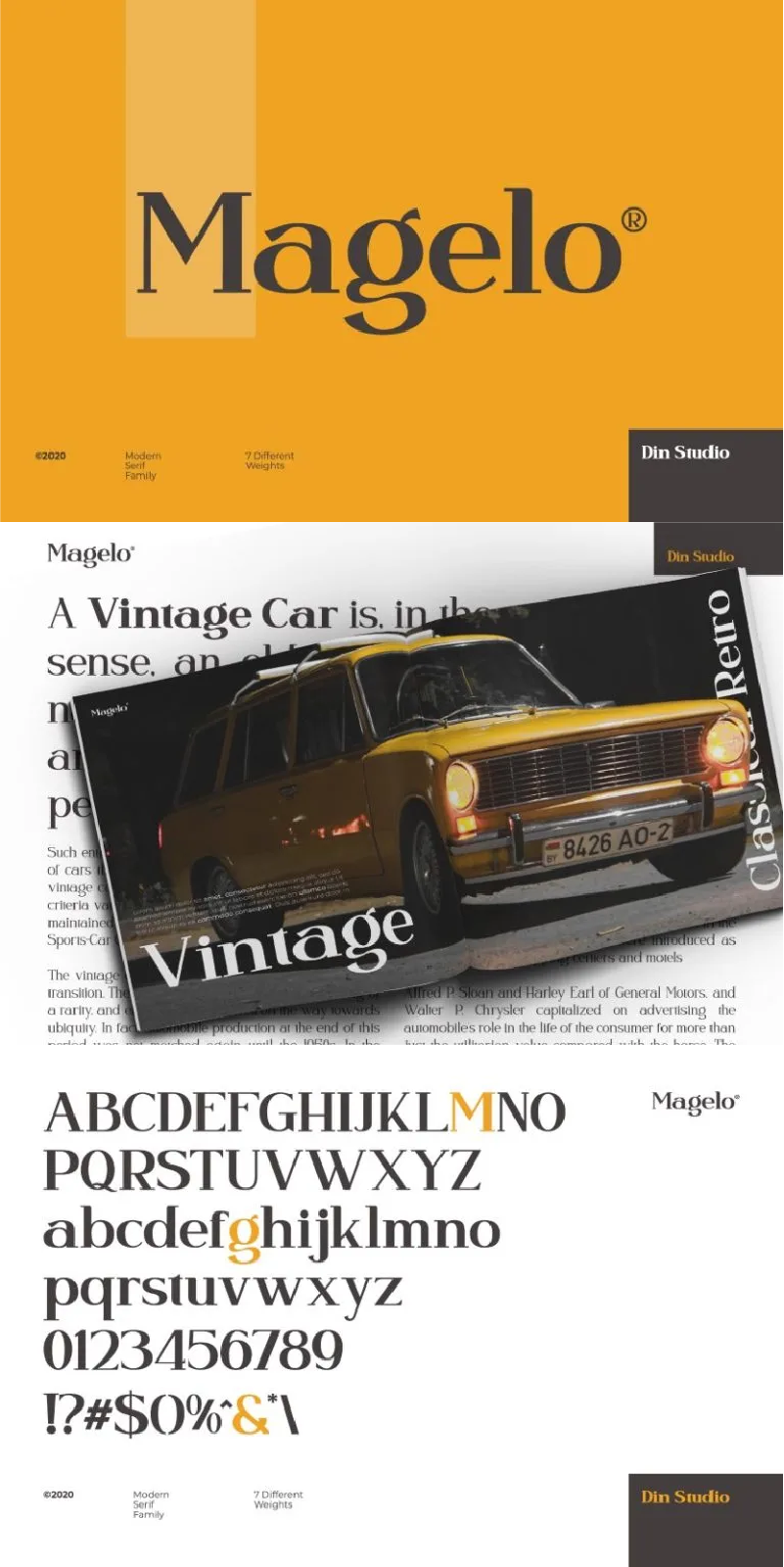
Magelo Font
About Magelo
Magelo – A Serif Font Family.
With this package you will get many options to maximize your designs with stylish fonts. It will delight and add brightness, modernity and elegance to wherever it is used. The font usually used for a host of different content needs and projects. And it also perfect to be used on your website, social media branding, Pinterest banners, printed products, invitation, cards, and so much more!
Includes Multilingual Support to make your branding reach a global audience.
Inspire your audience, clients, or guests with this beautiful, statement font. See the previews above to get some inspiration on how you can use them.
- Numerals and Punctuation